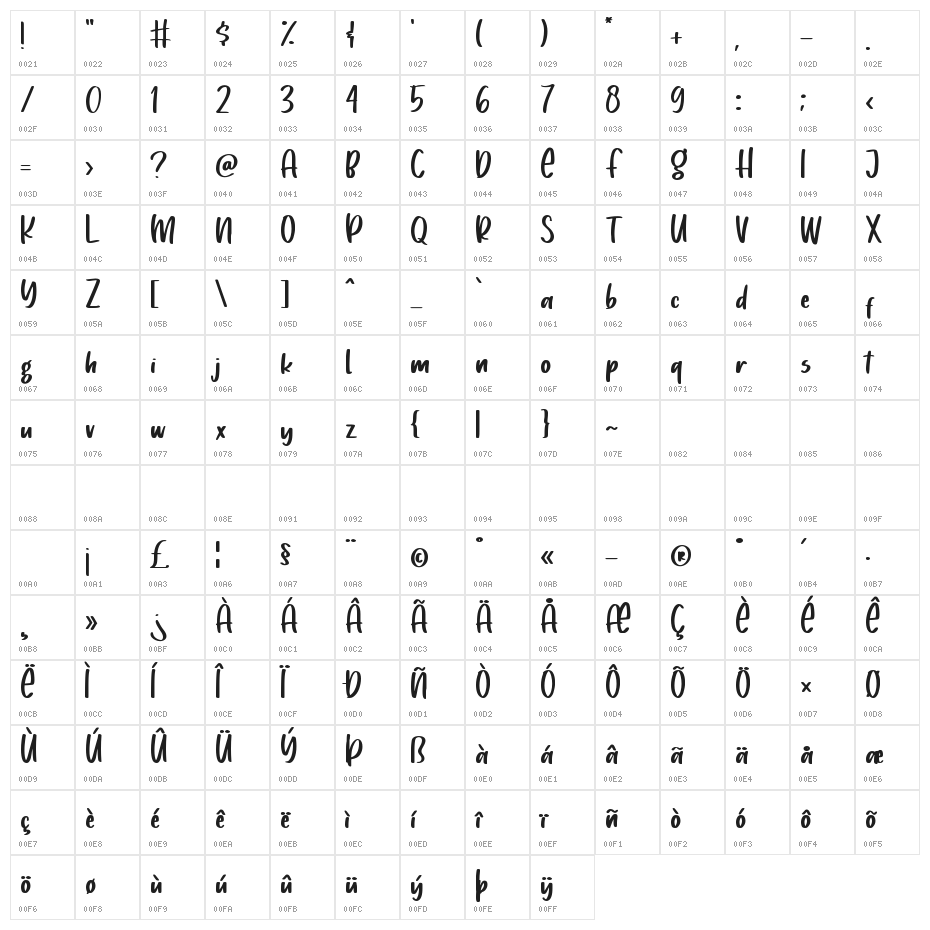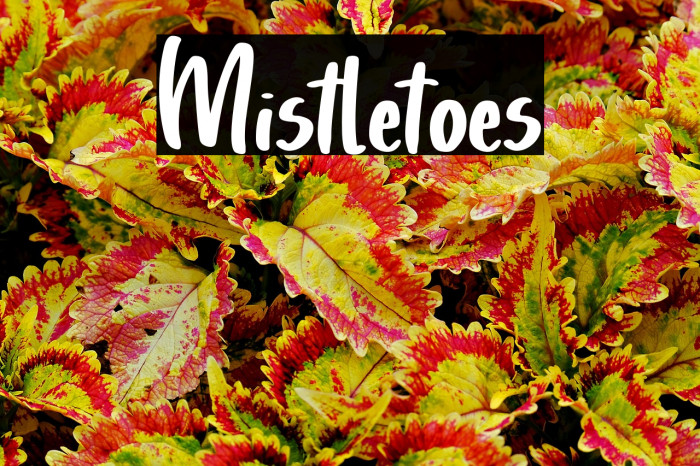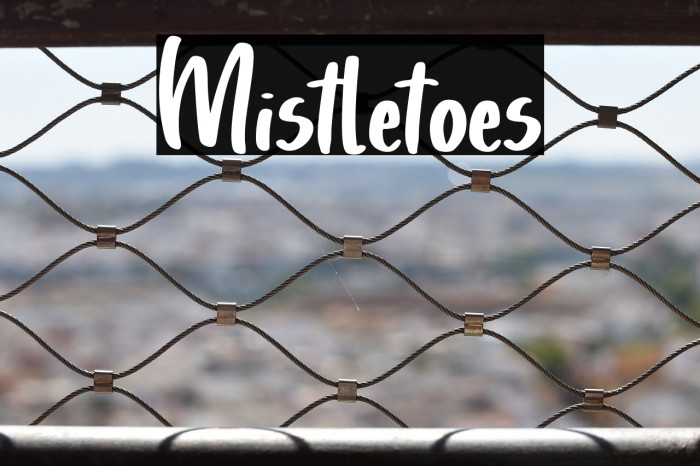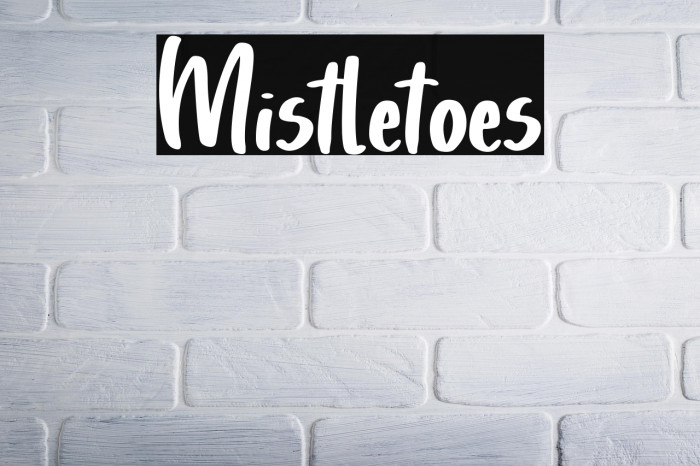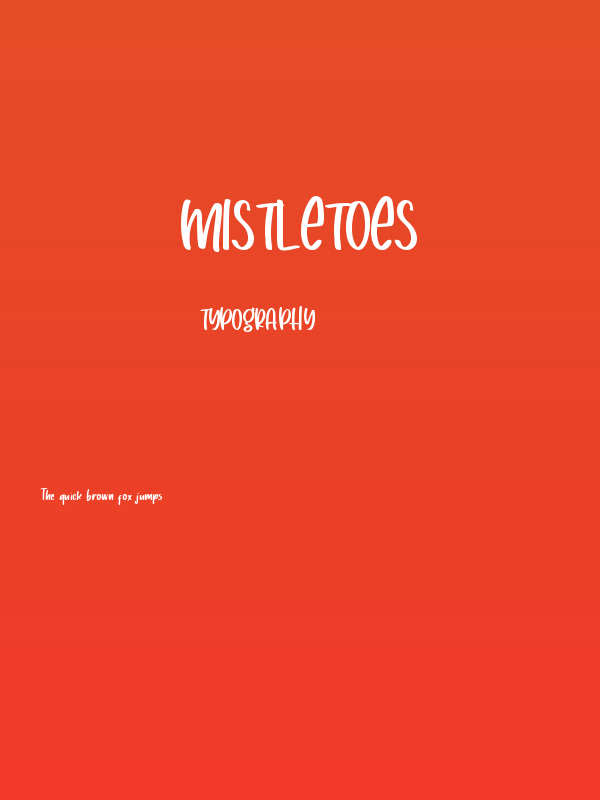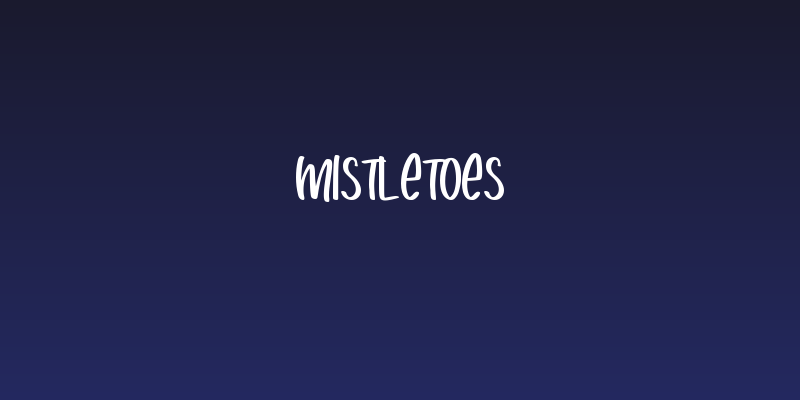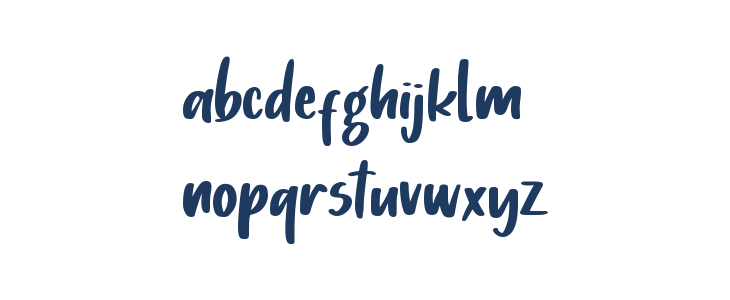
Mistletoes Font
Mistletoes Description
This font features a playful and whimsical handwritten style, characterized by its bold and flowing letterforms. The uppercase and lowercase letters maintain a consistent stroke width, giving it a cohesive appearance. The numbers and special characters are designed with the same playful flair, making them stand out. The overall look is casual and friendly, making it ideal for projects that require a personal touch. The font's unique style is perfect for adding a sense of fun and creativity to any design.
| Proposed Projects | Ideal for greeting cards, invitations, posters, and social media graphics. |